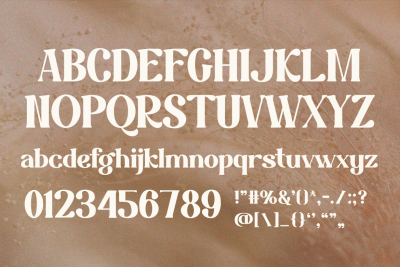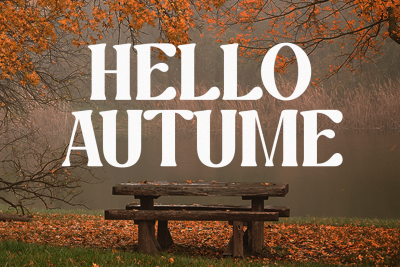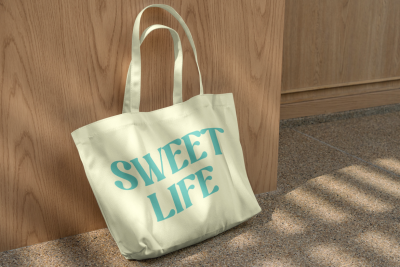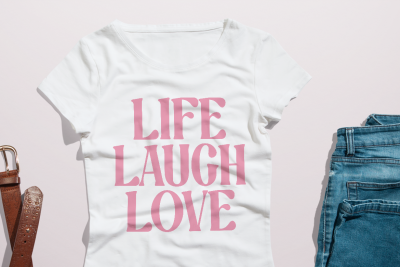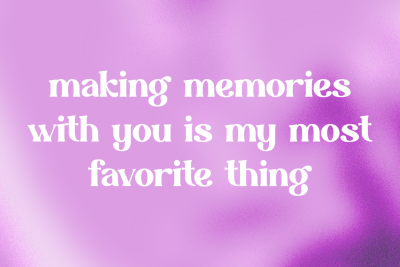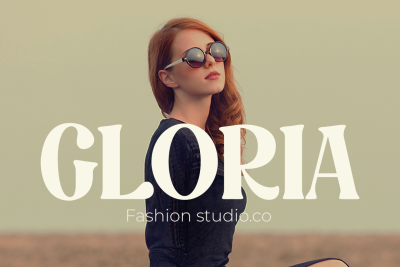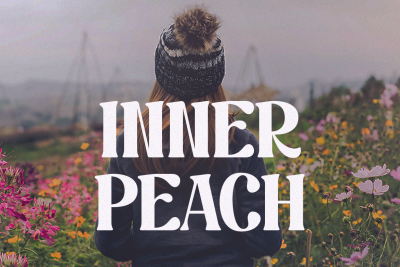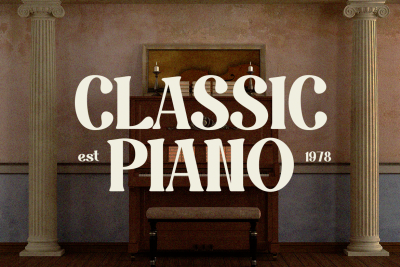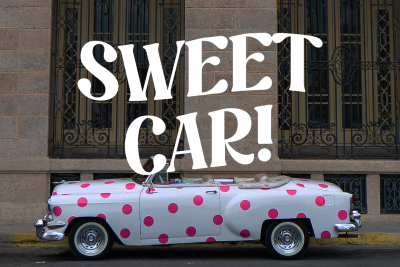
The Sunflare typeface brings a blend of vintage charm and elegance, making it ideal for designers seeking a standout font. This display typeface features bold, warm characters that add a nostalgic yet stylish touch to any project. With distinctive curves and fine details, Sunflare provides a timeless look that easily captures attention across various applications.
Designed for versatility, Sunflare suits projects that need both sophistication and classic appeal. It works beautifully in logos, headlines, posters, and branding, especially when a warm, inviting style is essential. Additionally, its refined design conveys elegance and offers approachability, making it a great choice for creating memorable visuals.
Ideal Uses and Benefits of Sunflare
Sunflare is visually striking and functionally versatile, making it an excellent choice for vintage-inspired designs. Its bold, stylish appearance enhances brand storytelling and appeals to a wide audience. For example, in print materials like posters, invitations, and packaging, Sunflare adds personality that leaves a lasting impression.
In digital media, this typeface brings warmth and sophistication to social media posts, digital ads, and web headers. Its smooth, flowing letterforms, combined with retro flair, capture attention and stay readable on screens of all sizes. Furthermore, Sunflare is ideal for projects blending tradition with modernity, such as branding, product labels, and promotional designs.
Why Choose Vintage Font Sunflare?
Selecting Sunflare means choosing a typeface that embodies both elegance and nostalgia. This font allows designers to create visuals that feel classic yet fresh. Moreover, its versatile style works well in modern, rustic, or retro-inspired themes. With subtle vintage influence and radiant curves, it adds character without overwhelming the design.
In addition, Sunflare instantly elevates the look of your work. Each letter is crafted with precision, resulting in a polished typeface that adds sophistication to any project. For designers seeking vintage charm with contemporary versatility, this typeface is a valuable addition to their toolkit.